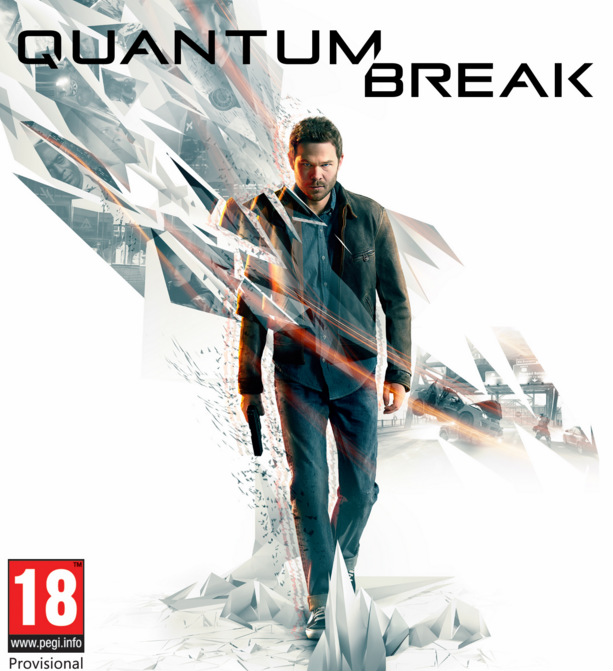
Quantum Break Font
Fonts in UseQuantum Break is a science fiction third-person shooter video game developed by Remedy Entertainment and published by Microsoft Studios. The game features time-manipulation gameplay mechanics and a narrative that is influenced by the player's choices.
Quantum Break's logo may have been designed with Pirulen, a wide, modern headline font resembling Bank Gothic. Created by Ray Larabie, it has six weights with corresponding italics and can be downloaded for free in regular weight from the Fonts Used section or purchased here.